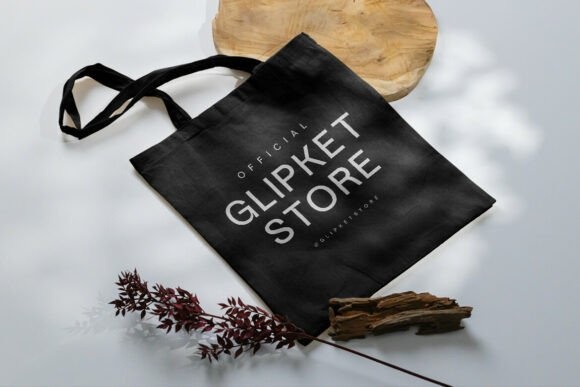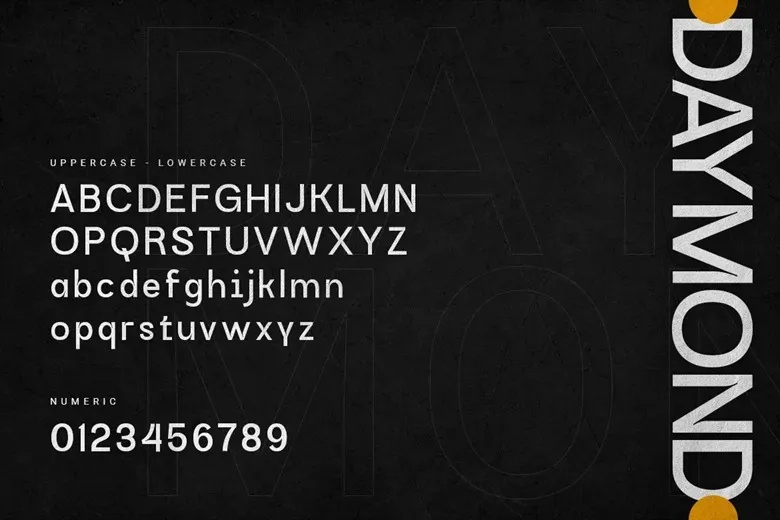
Daymond Font
Daymond is a contemporary sans serif typeface that blends minimalist elegance with a distinct personality. Carefully crafted to offer a clean yet unique aesthetic, Daymond is a versatile solution for a wide range of creative projects. With sharp lines and well-balanced proportions, it achieves clarity and refinement across all weights.
Highly legible and stylish, Daymond is suitable for everything from headlines and body text to logos, branding, editorial layouts, and websites. Its modern and professional design ensures a sleek, elegant touch in any visual context.